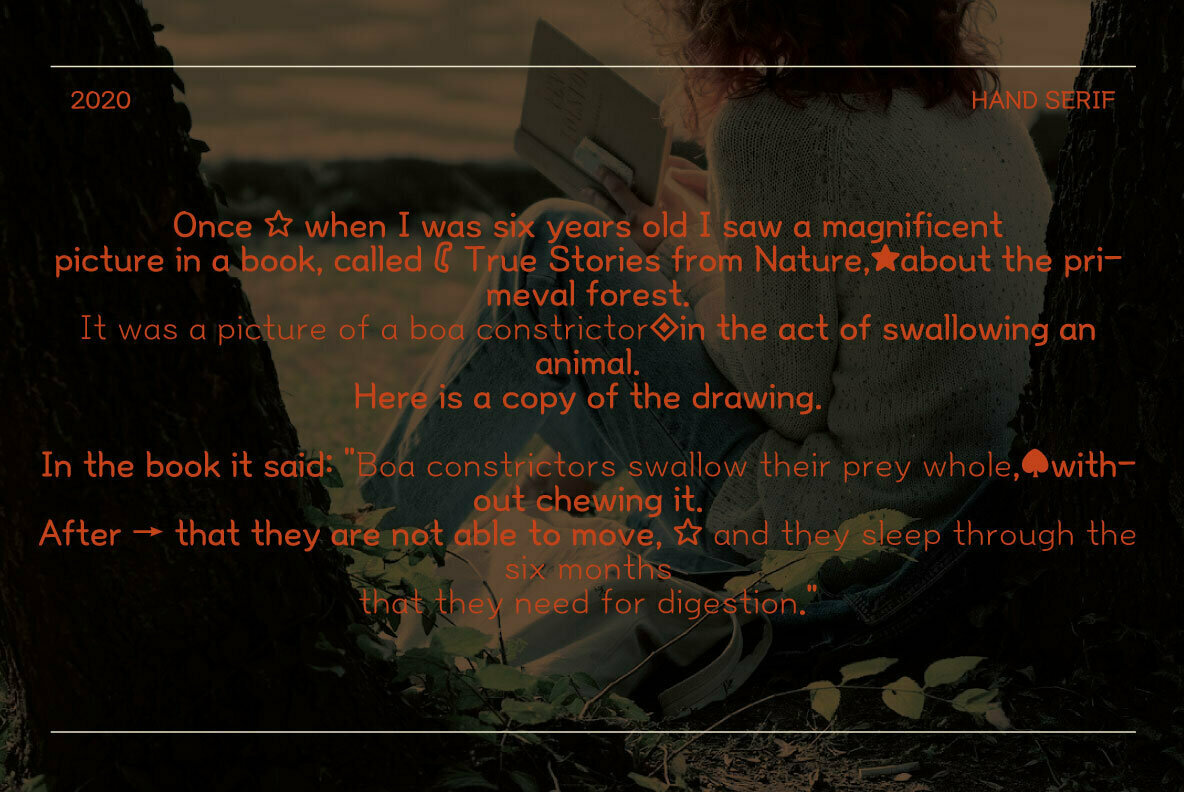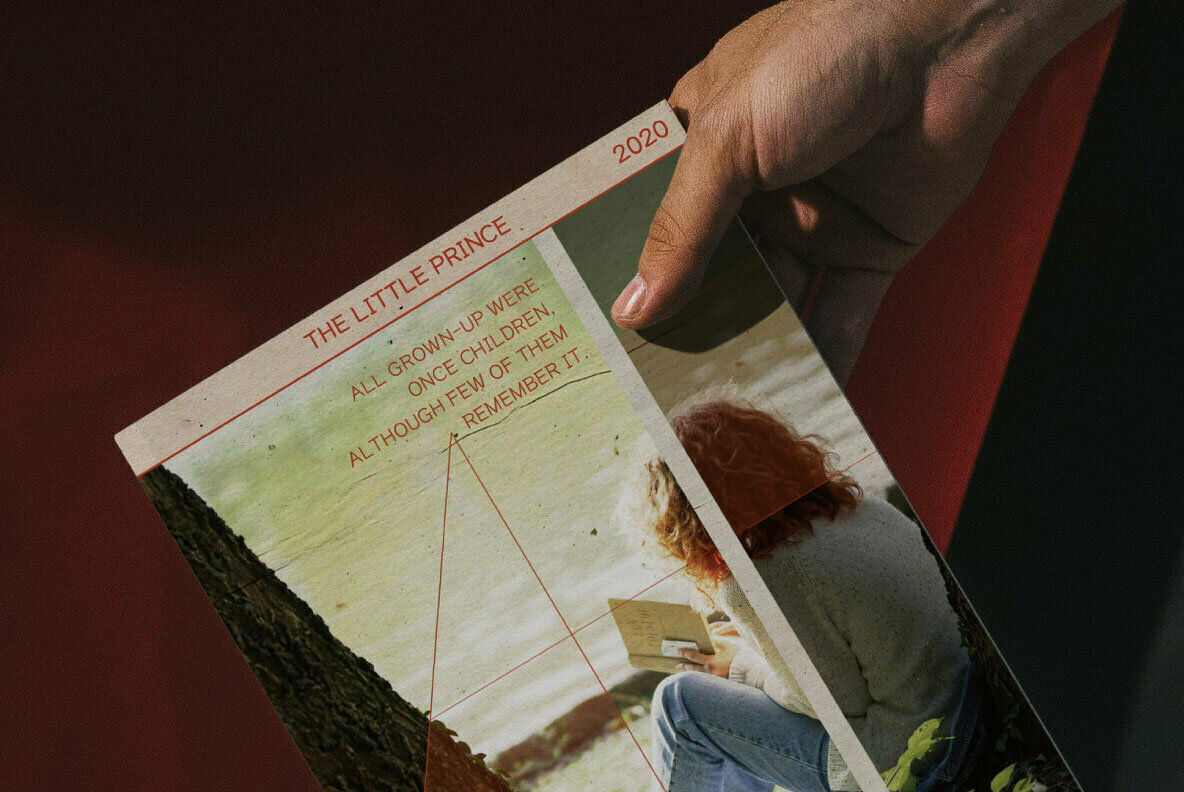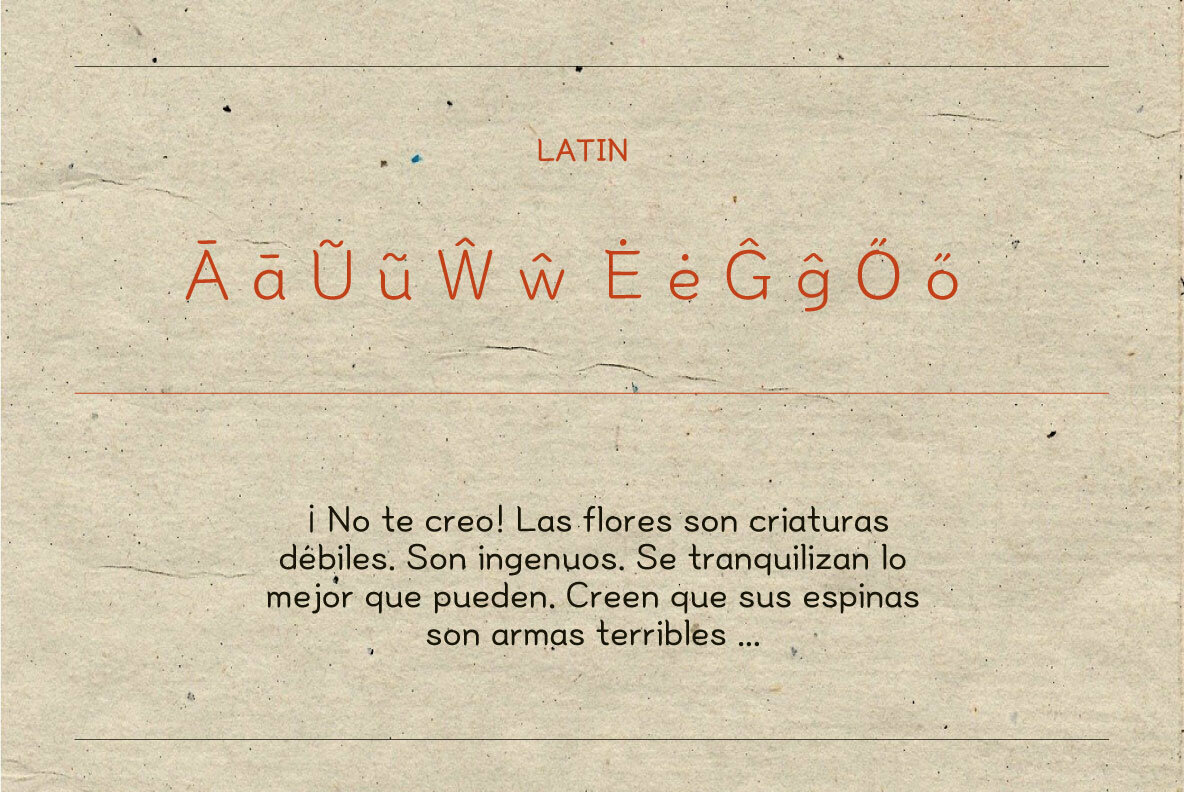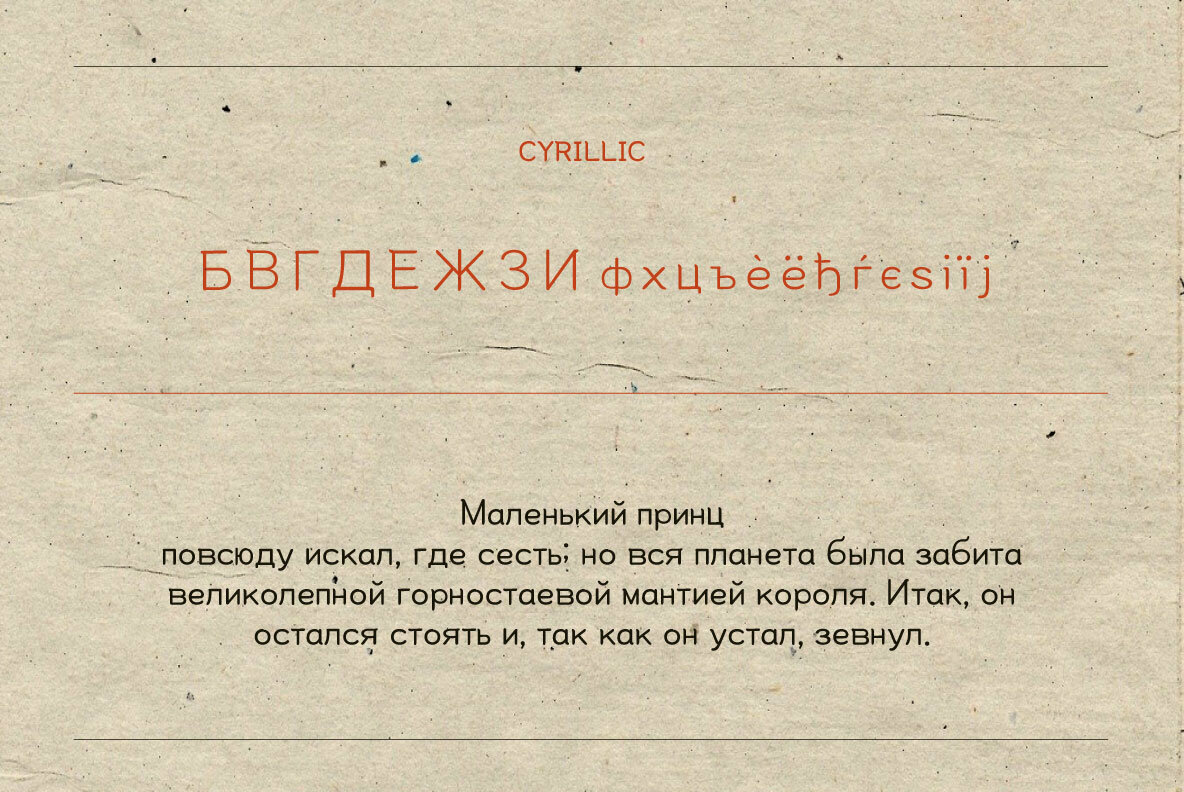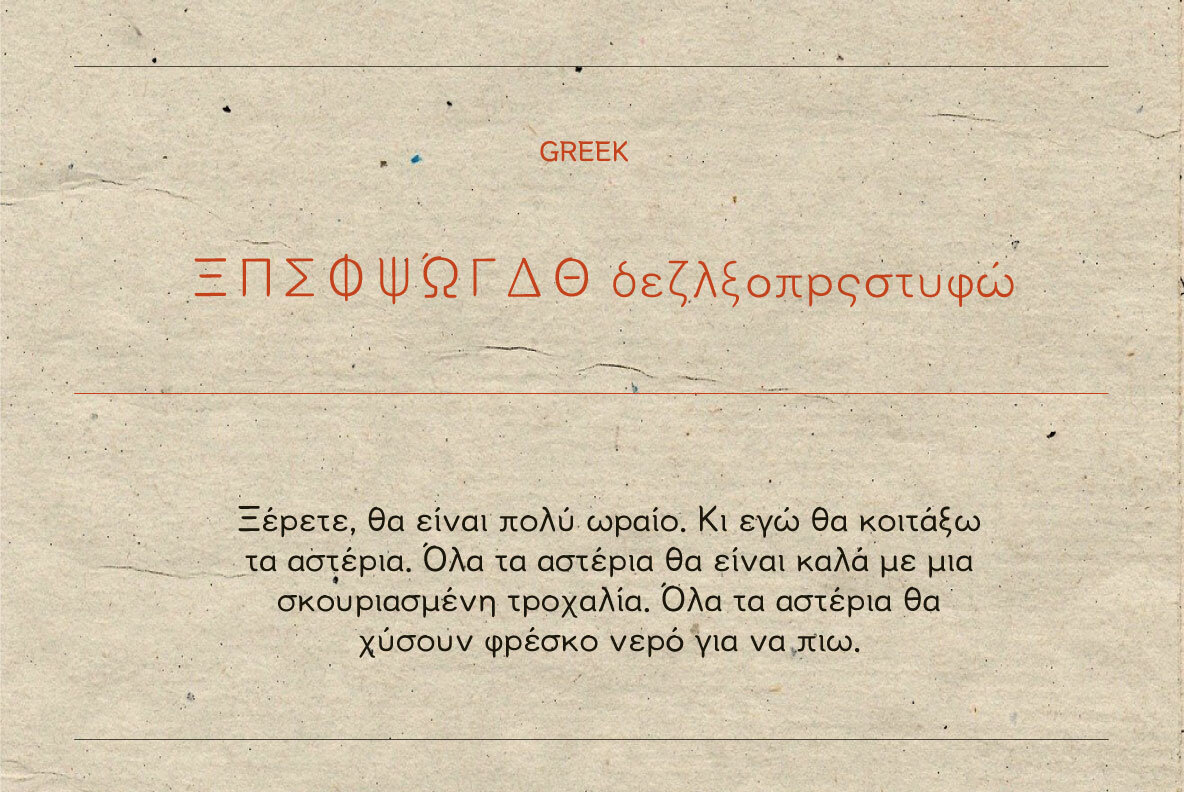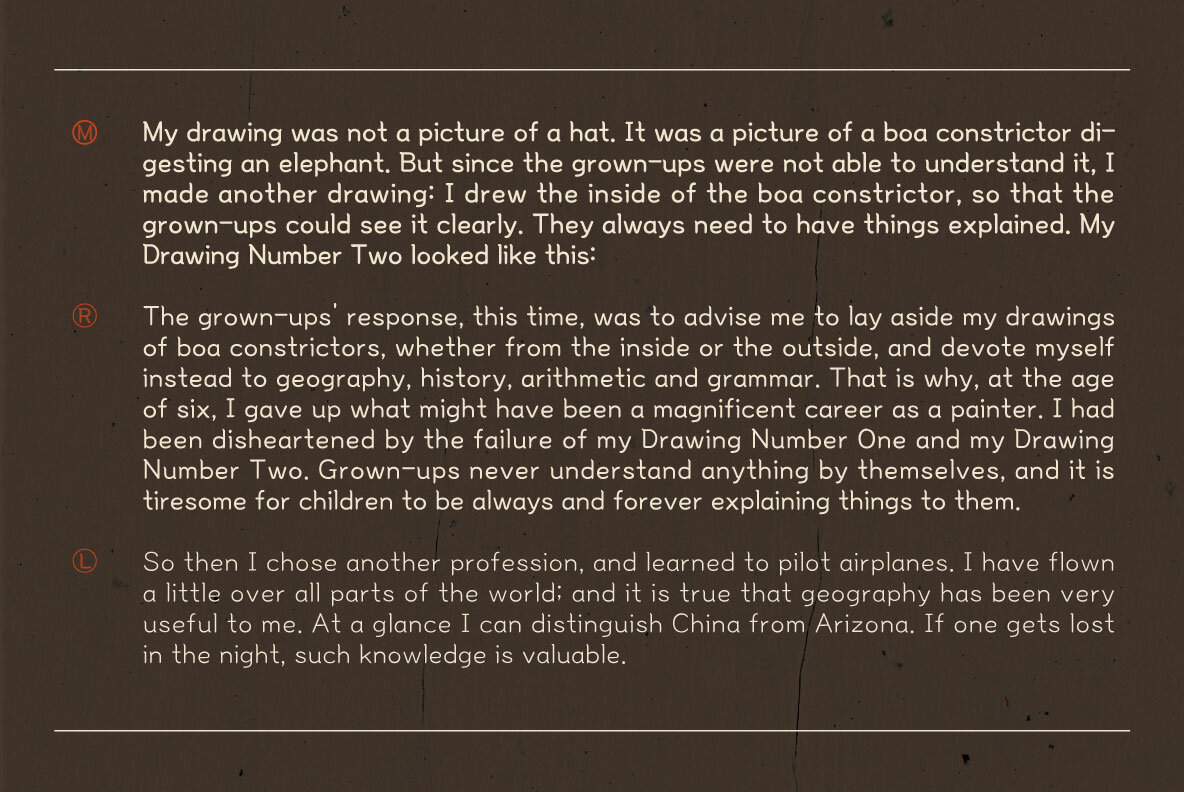
HU Hand Serif Font
HU Hand Serif is a handwritten font with serif. Rather than having straight strokes like san serif fonts, the strokes of alphabets are a little bit waved, which make it look unique and emotional. We recommend you to use this font for cozy, warm design and decoration.